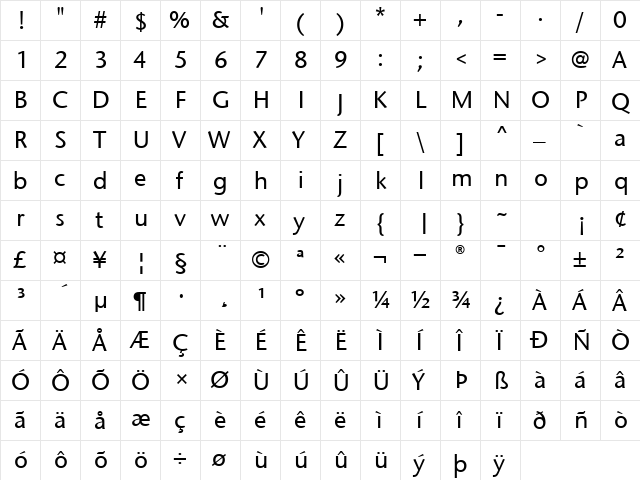
Stone Sans ITC TT Medium
Design Context for Stone Sans ITC TT Typeface
Stone Sans ITC TT is a composed and adaptable typeface that performs quietly and consistently across a wide range of design contexts.